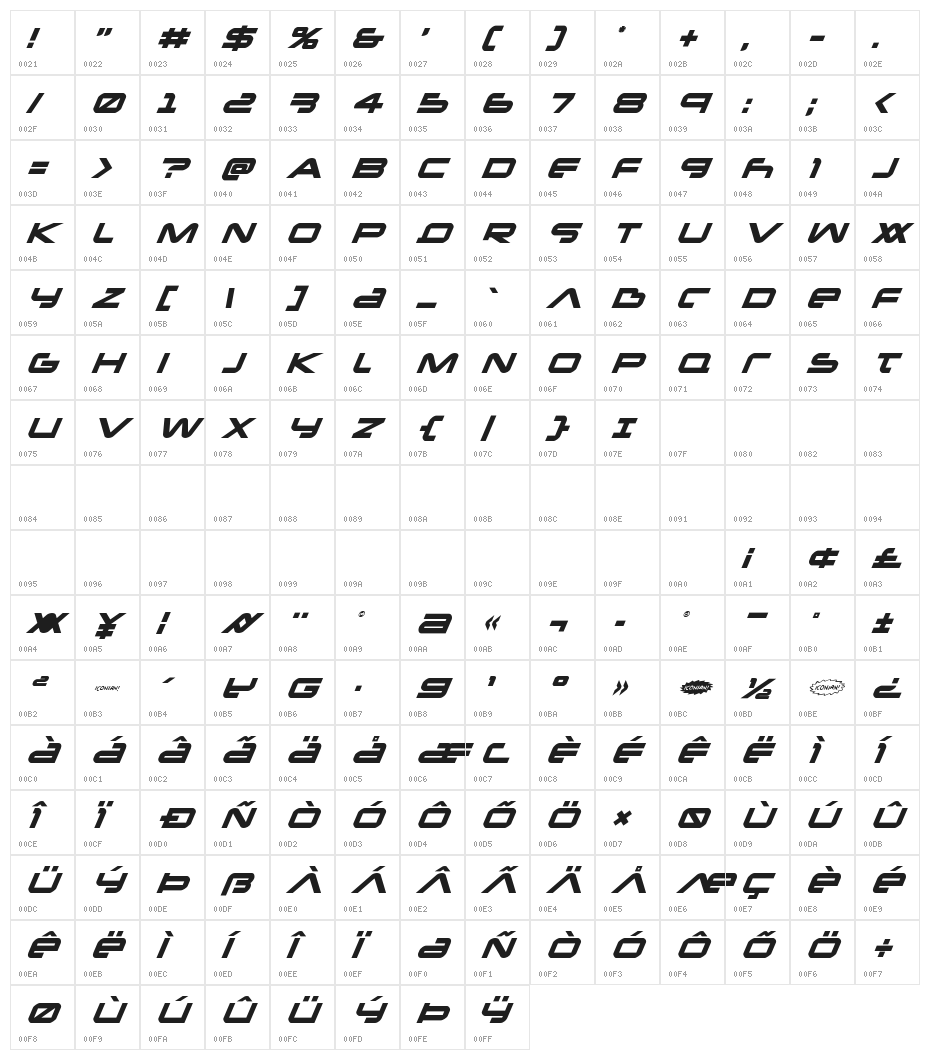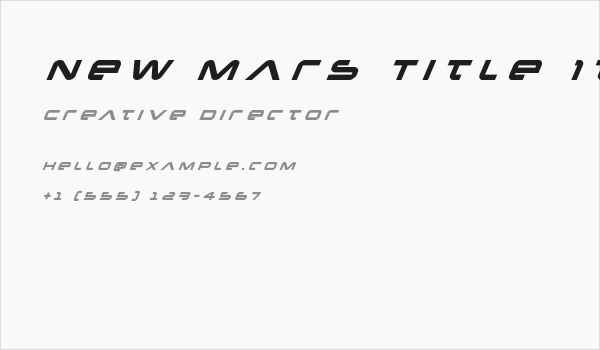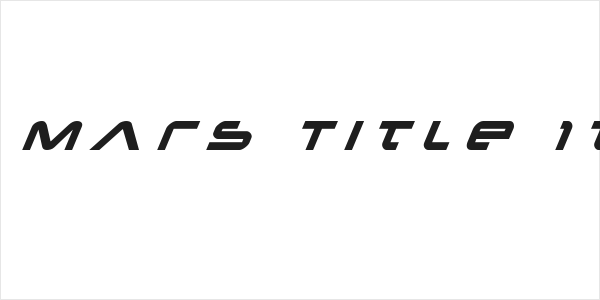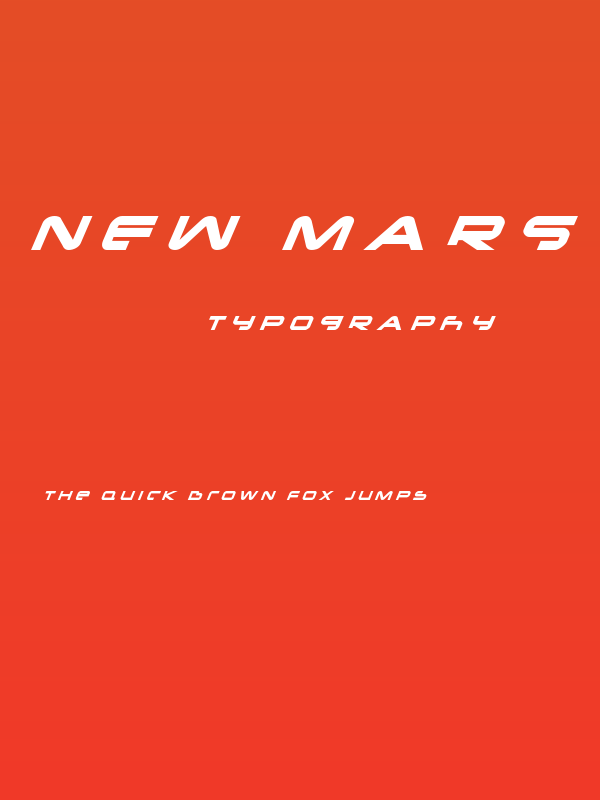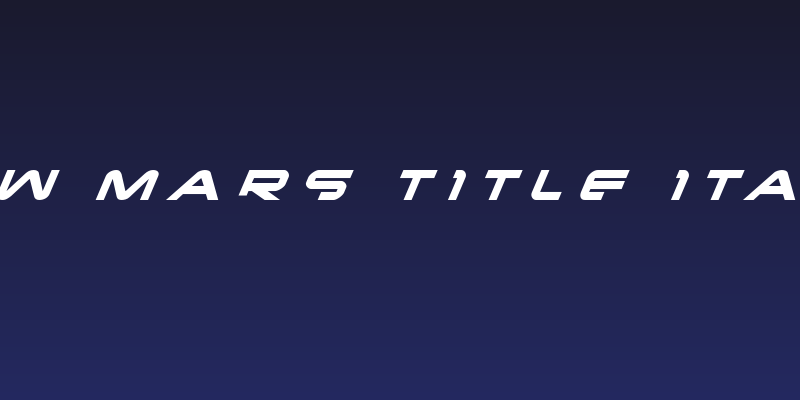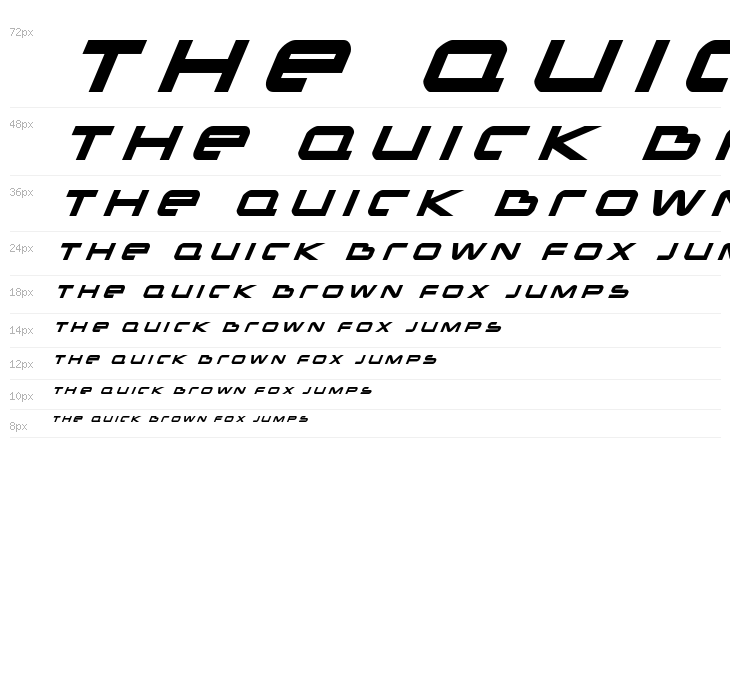
New Mars Title Italic Font
New Mars Title Italic Description
This font features a futuristic and dynamic design with a distinct italic slant, giving it a sense of motion and speed. The characters are bold and angular, with sharp edges and a geometric structure that suggests a modern, tech-inspired aesthetic. The uppercase and lowercase letters maintain a consistent style, with the lowercase being slightly more compact. Numbers and special characters are designed to match the overall theme, ensuring uniformity across all elements. The font's unique style makes it ideal for projects that require a contemporary and innovative look.
| Proposed Projects | Ideal for technology branding, sci-fi movie posters, video game titles, and modern advertising. |